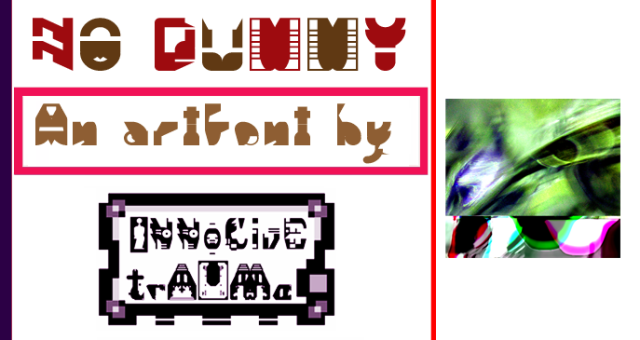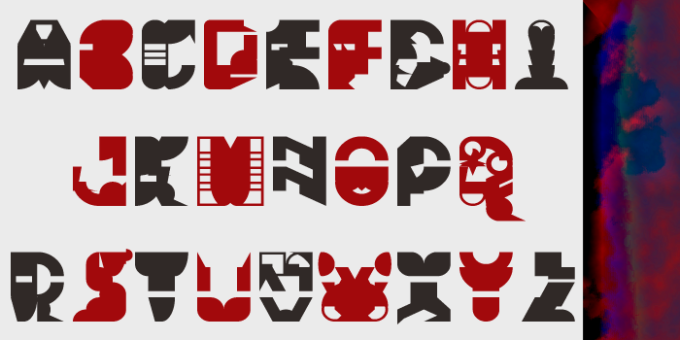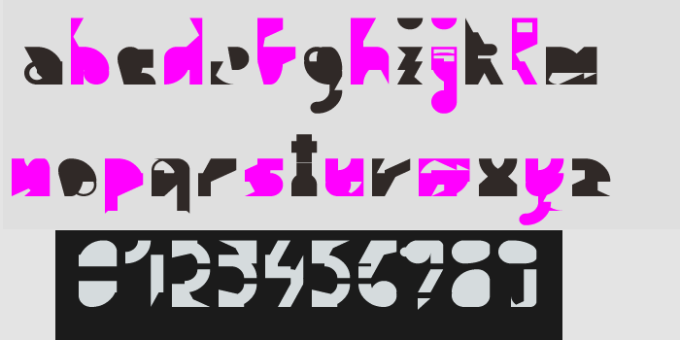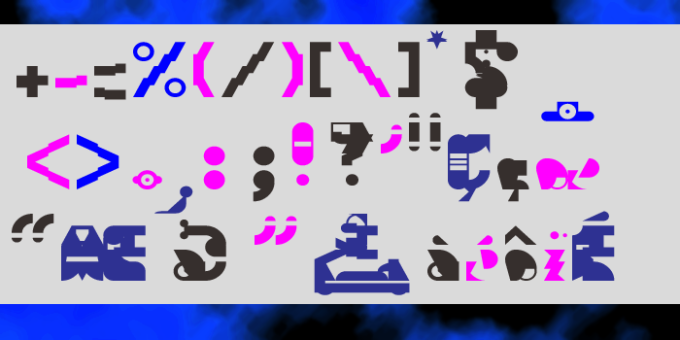
trAUMa 15 / No Dummy
"No Dummy", like all the "trAUMa" series, works at the frontier between Art & Type Design, Figuration & Abstraction, each font is a comprehensive world in which every glyph is a "living" entity. But put together they can produce your messages in the most accurate way.